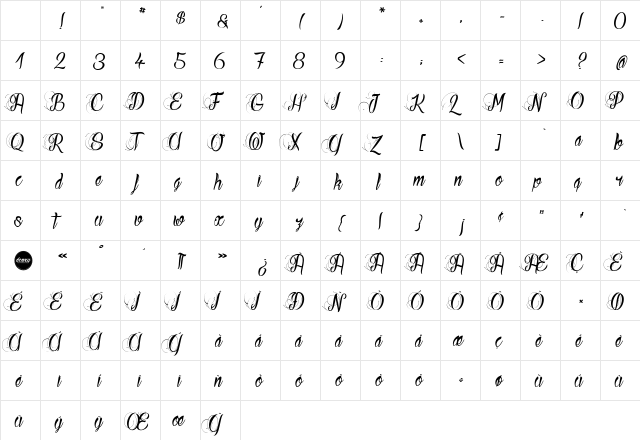
Your Fear Regular
Foundry: dcoxy Medina Gregory
Designer: dcoxy Medina Gregory
Design Context for Your Fear
Your Fear is a composed and adaptable typeface that performs quietly and consistently across a wide range of design contexts.